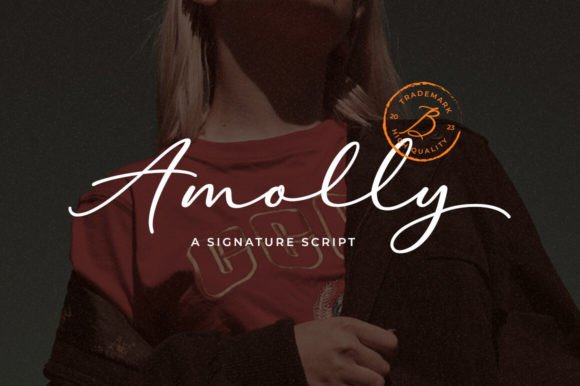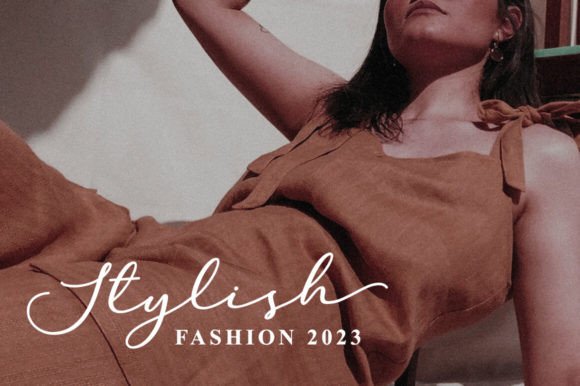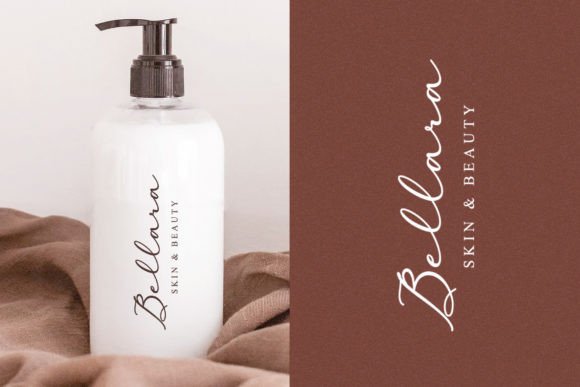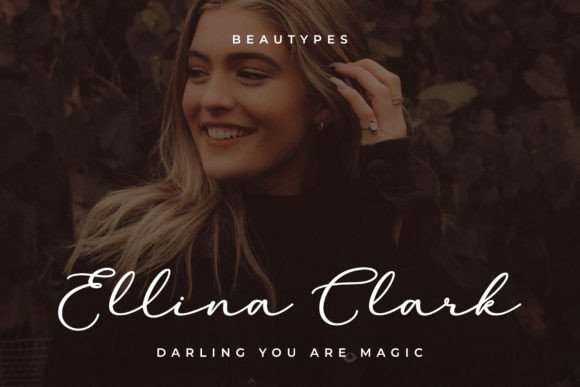
Amolley Font: Elegant Signature Script for Branding & Wedding Designs
About the Amolley Font
Let us introduce you to Amolley Font, where timeless design meets modern craftsmanship. Amolley is a handwritten font that is suitable for branding, signature, wedding invitation, promotion, product packaging, and other needs.
Amolley Font Usage Examples
Amolley Font Example